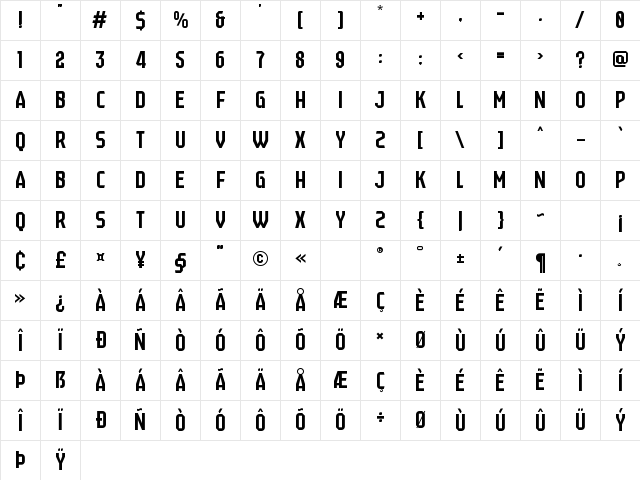
Complete Double Pivot Personal Used Regular glyph index. Displaying only characters natively supported by Double Pivot Personal Used Regular font.
Double Pivot Personal Used is a composed and adaptable typeface that performs quietly and consistently across a wide range of design contexts.